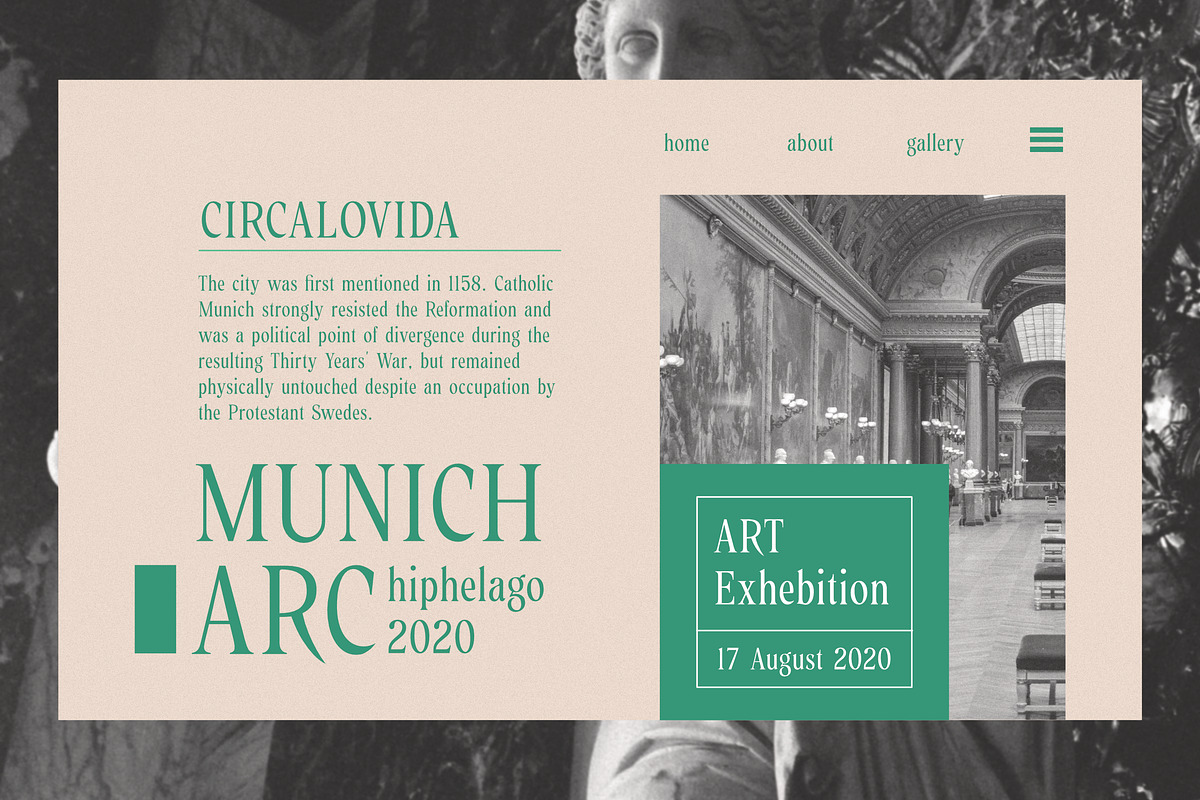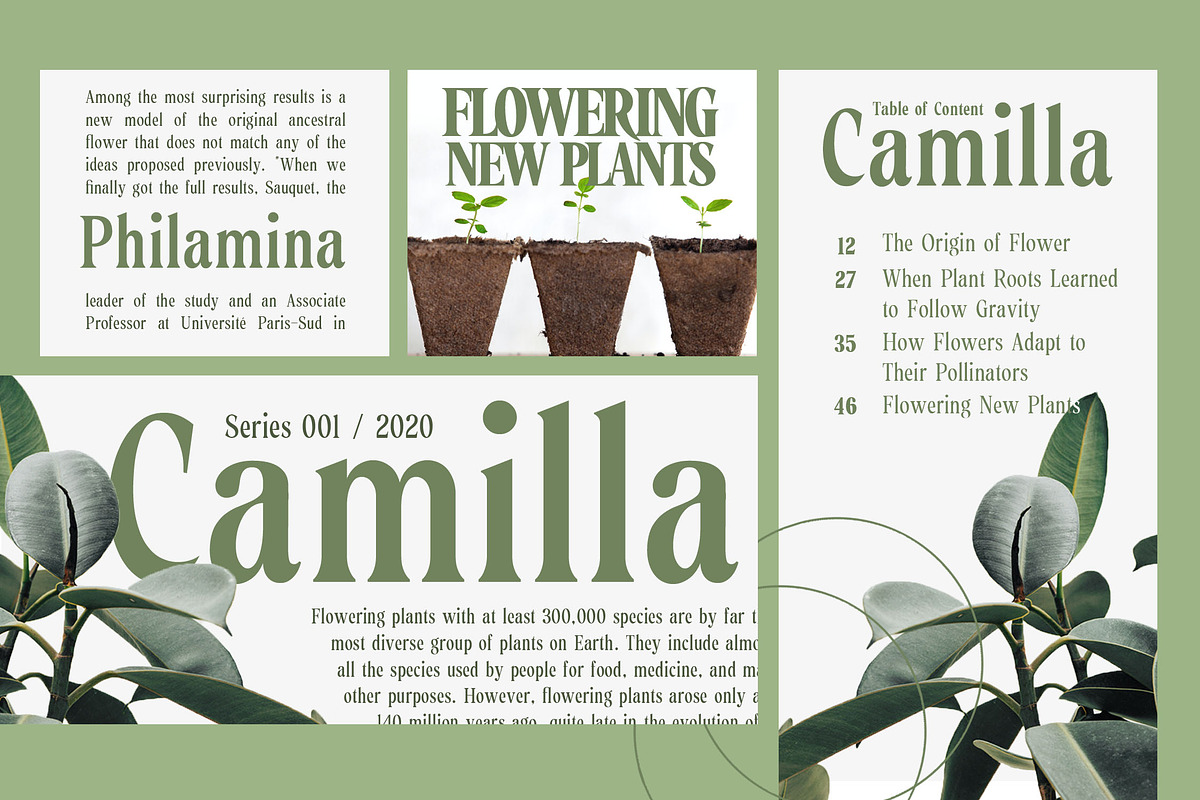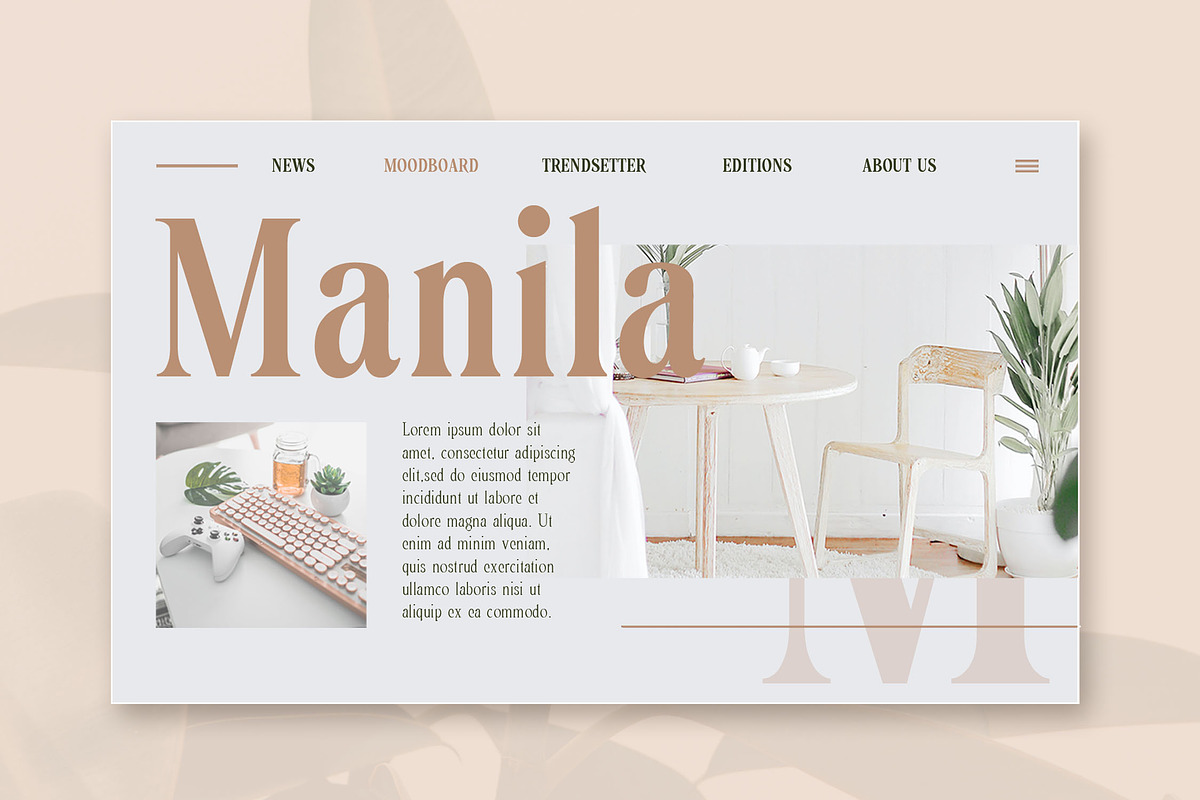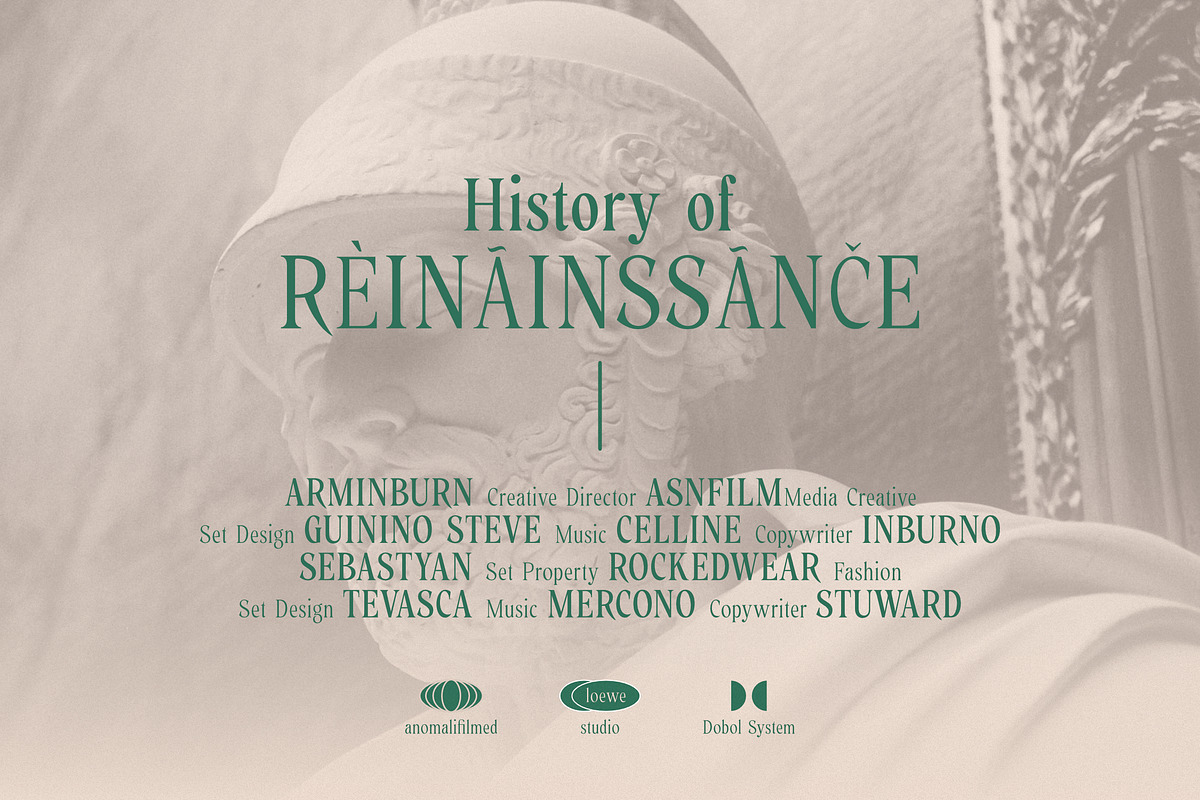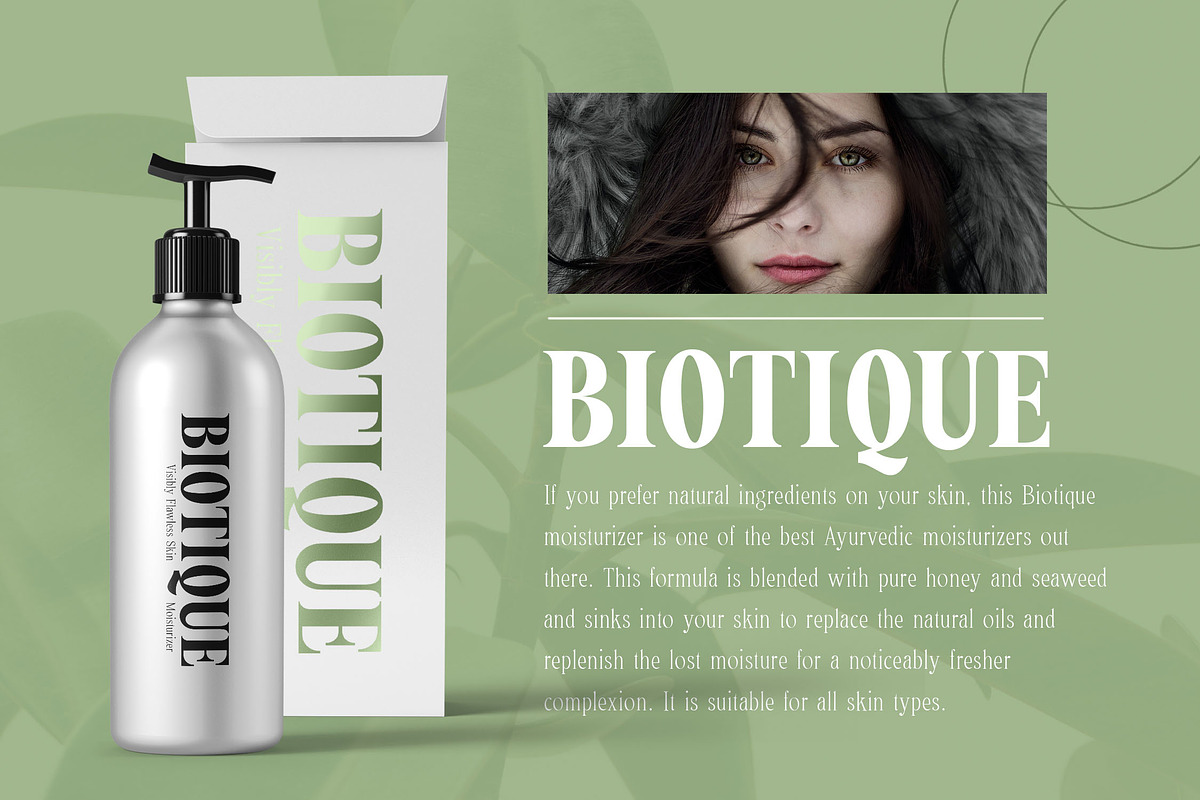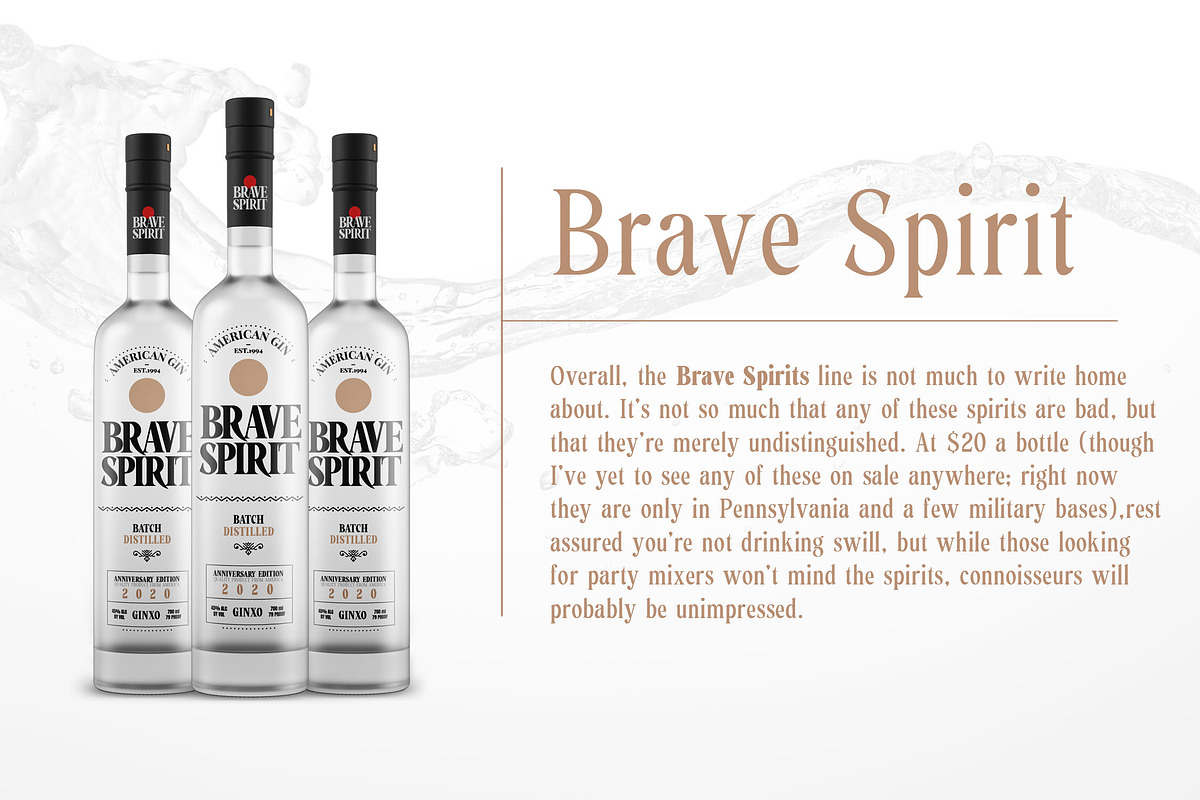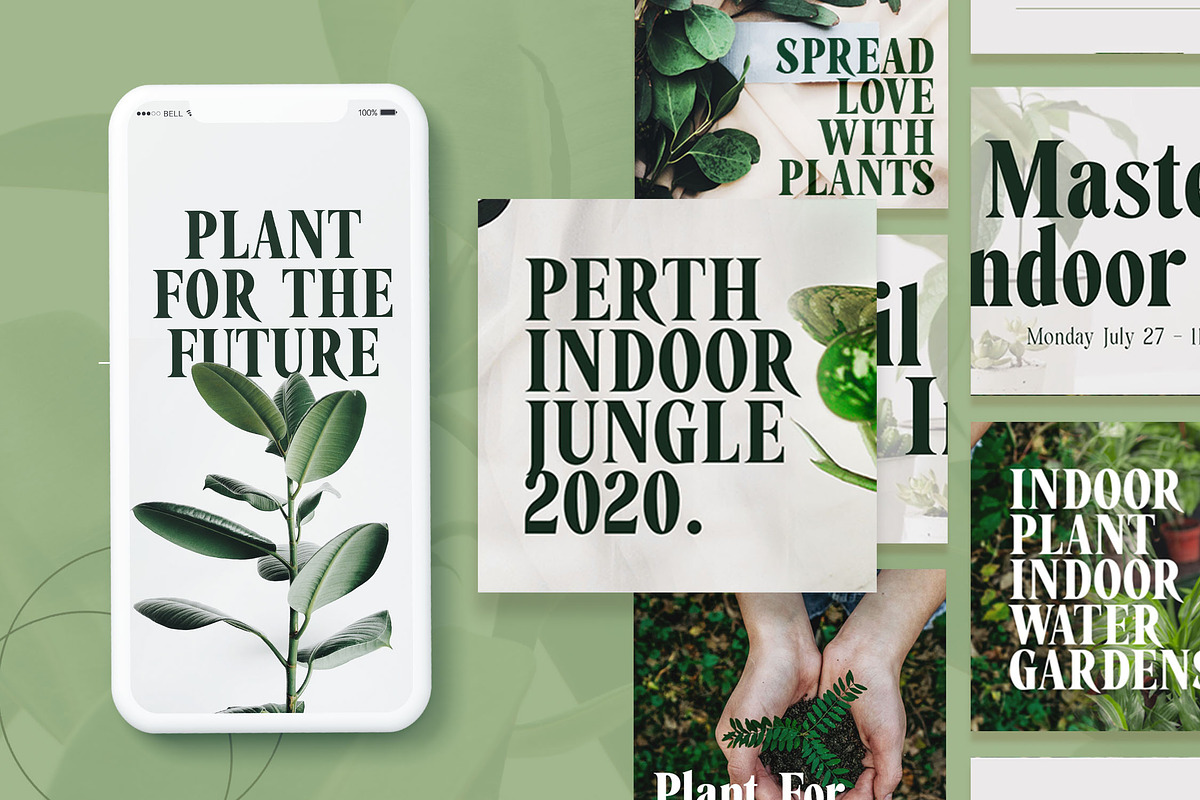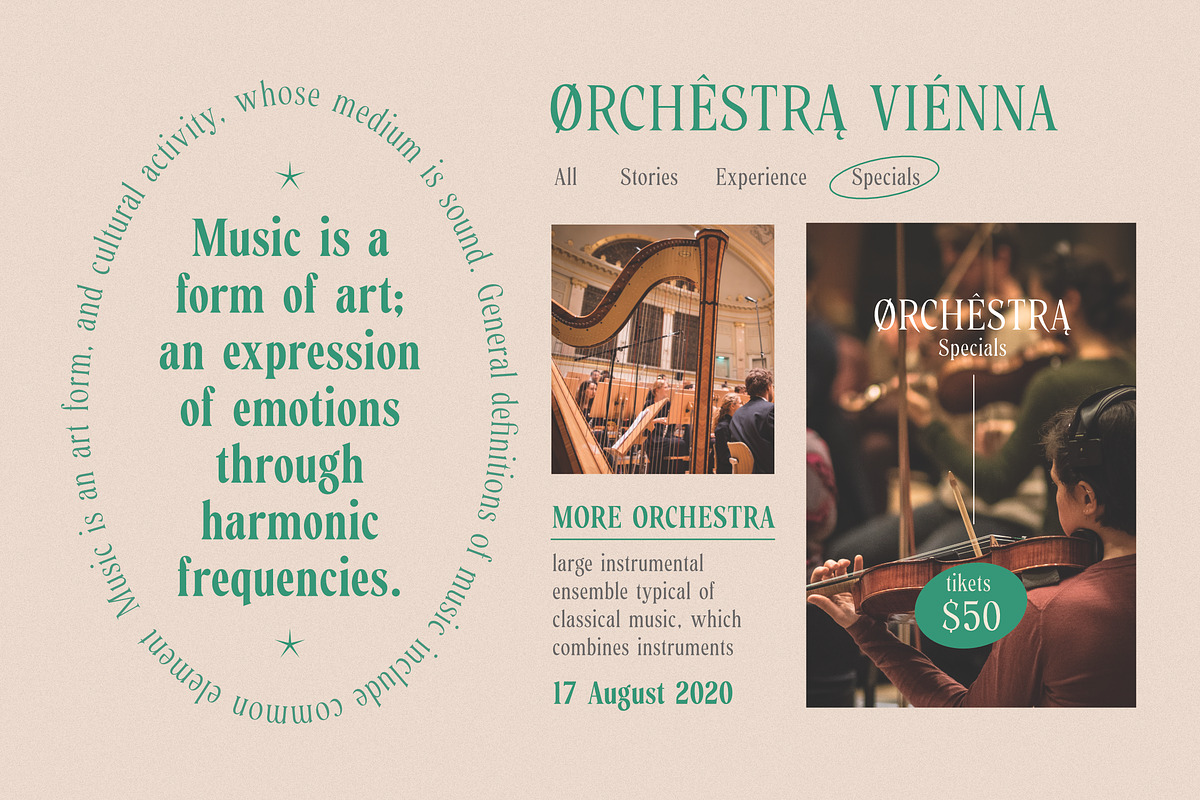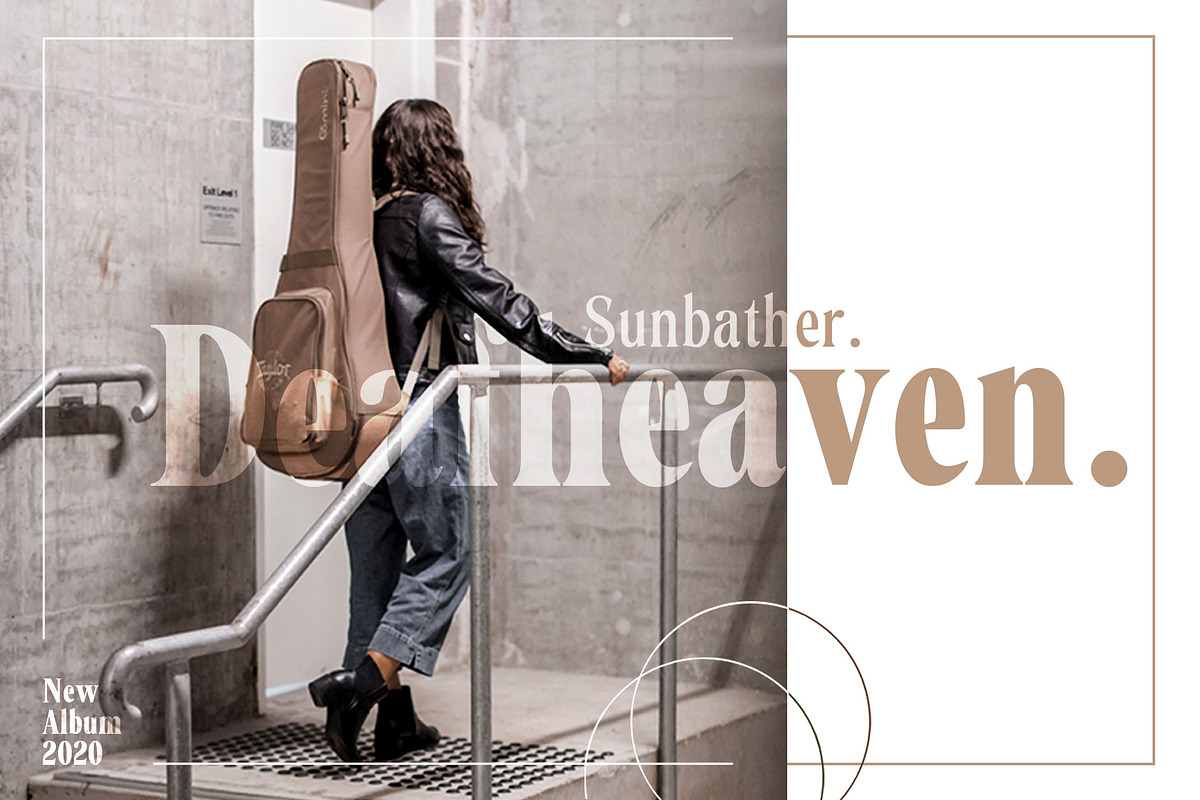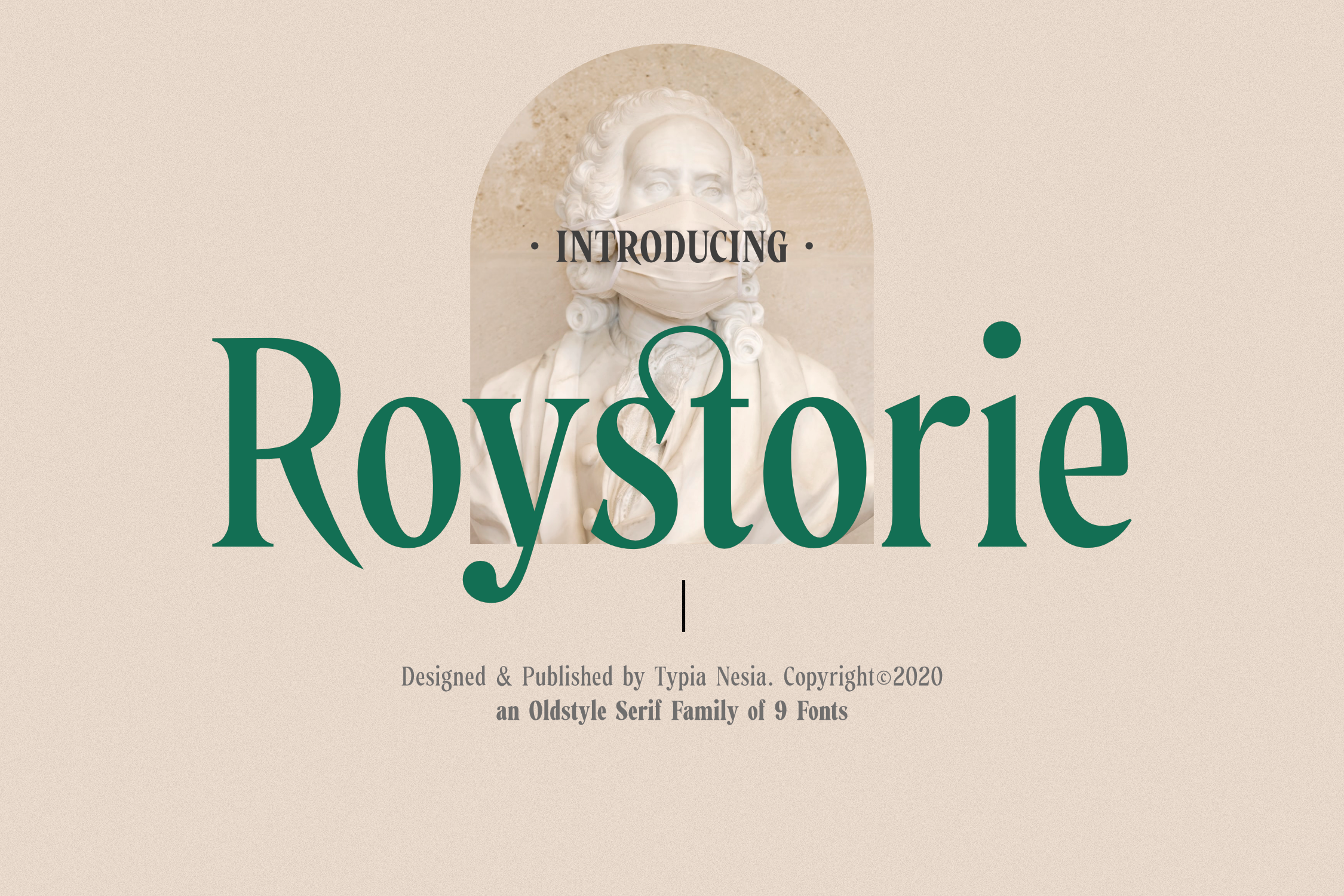
Roystorie Serif Family - 9 Fonts
Roystorie is a renaissance old style serif family with 9 weight styles from thin to black.
Roystorie Serif font is perfect for your up coming projects. Such as logo branding, editorial design, stationery design, blog design, modern advertising design, card invitation, magazine, company profile, art quote, home decor, book/cover title, special events and any more.